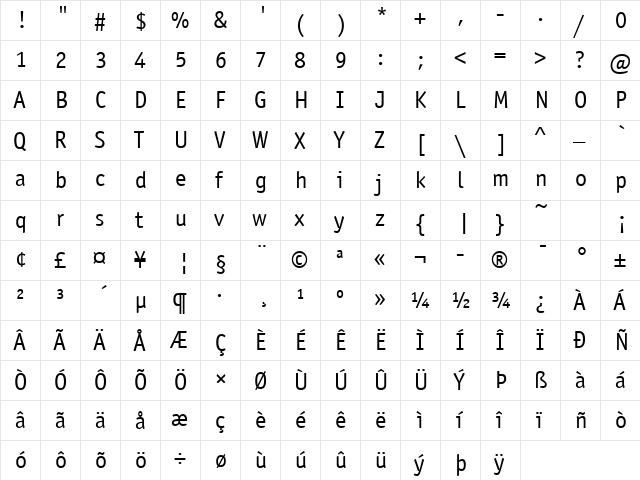
Officina Sans ITC TT Book Font Preview
Officina Sans ITC TT Book
Officina Sans ITC TT Book Font Details
Design Context for Officina Sans ITC TT Typeface
Officina Sans ITC TT is a composed and adaptable typeface that performs quietly and consistently across a wide range of design contexts.